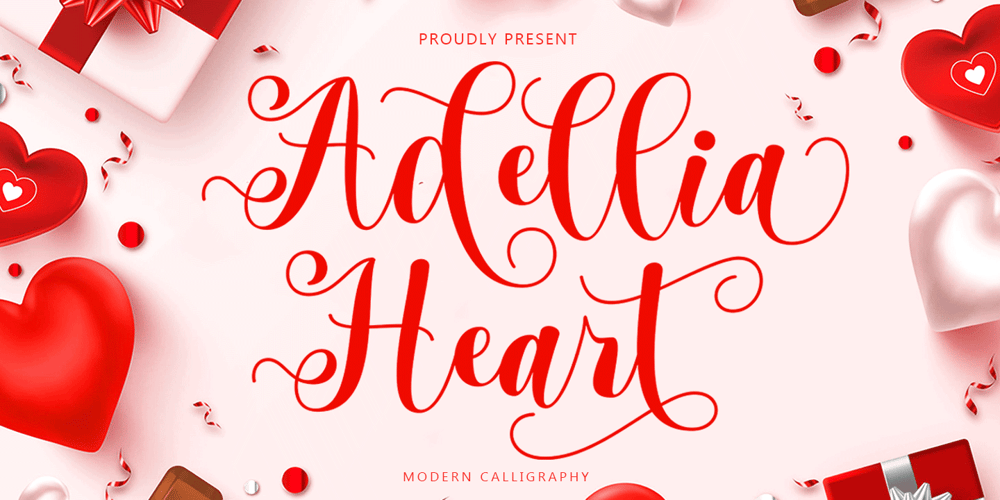
Adellia Heart Font Family was designed by Sidiq Fahmi and published by Rotterlab Studio. Adellia Heart contains 1 styles and family package options. Adellia Heart is a modern calligraphy font created especially for Spring.Adellia Heart is great for unique branding, photo overlays, watermarks, greeting cards, posters, business cards, invitations, weddings, photography, fashion, clothing, letters, stationery, etc.This font is PUA encoded which means you can access all the glyphs and sweeps easily!Thank You